40+ Spectacular Free Fonts For Commercial Use
Designers have an unbelievable choice of free fonts these days. So, if you’re searching for the best free fonts for commercial use on the internet, look no further!
We have found a vast collection of amazing free fonts for you – for any project and every design. So whether you’re looking for a script, serif, or sans-serif font, this collection of the best free fonts for designers has you covered!
Here Are 40+ Free Fonts For Commercial Use
1. Halloween Font
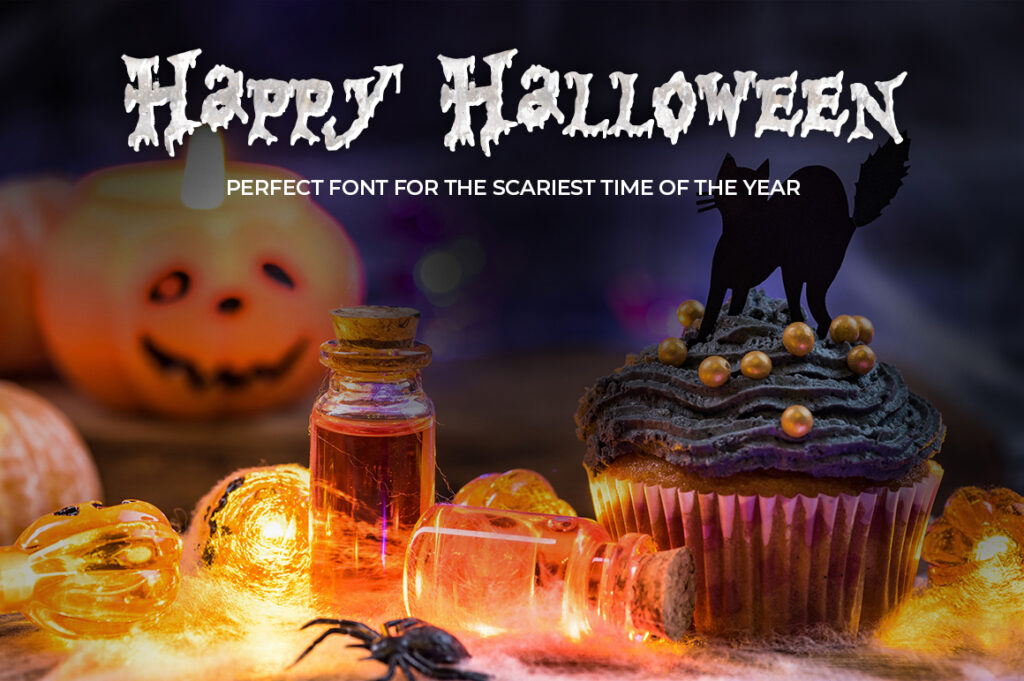
Happy Halloween is the perfect font for the scariest time of the year. Its spooky appearance will inspire you! This font supports English, Spanish, Portuguese, German, Italian, French, and Polish.
2. Antaro Font
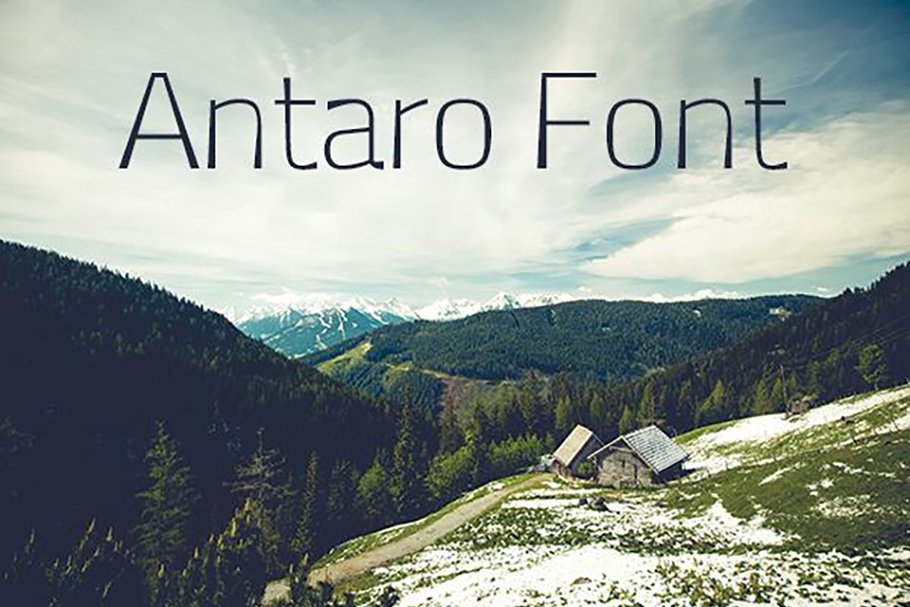
3. Geranium Font
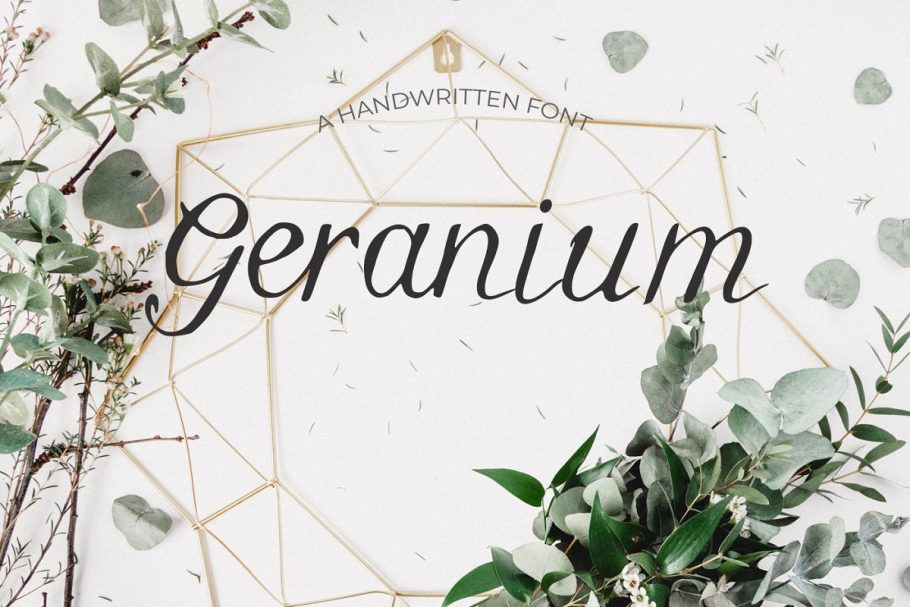
The Geranium font is a beautiful font with a unique, detailed, and handmade look. This is one of the best free fonts for commercial use.
4. Doriath Font
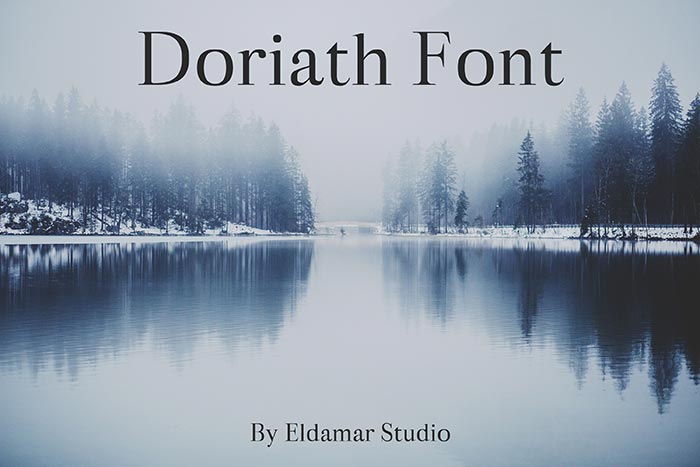
Doriath Font is an attractive handwritten font. You can use this free font for commercial use to design unlimited logo designs.
5. Amaranthine Script
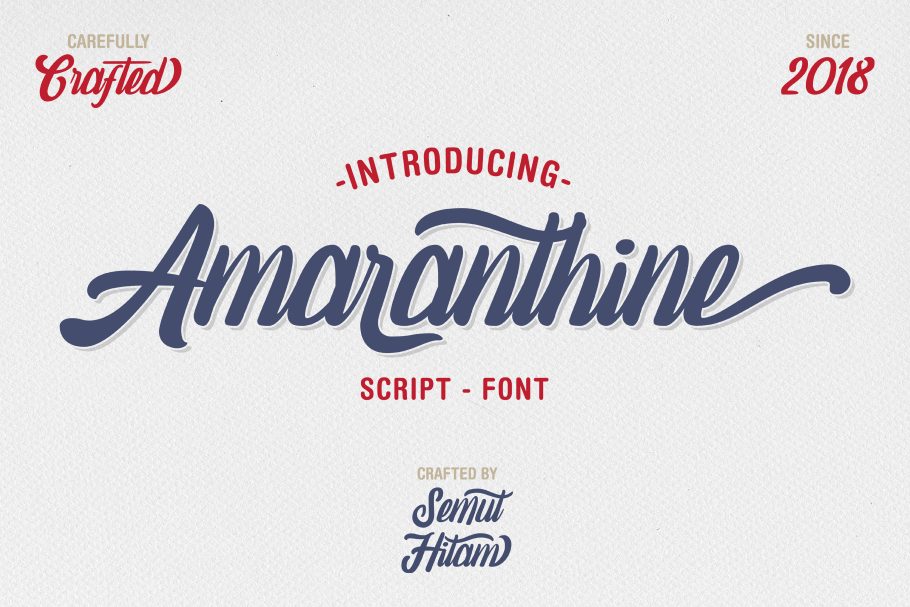
This is a smooth and vintage, free script font.
6. Aletcia Free Font
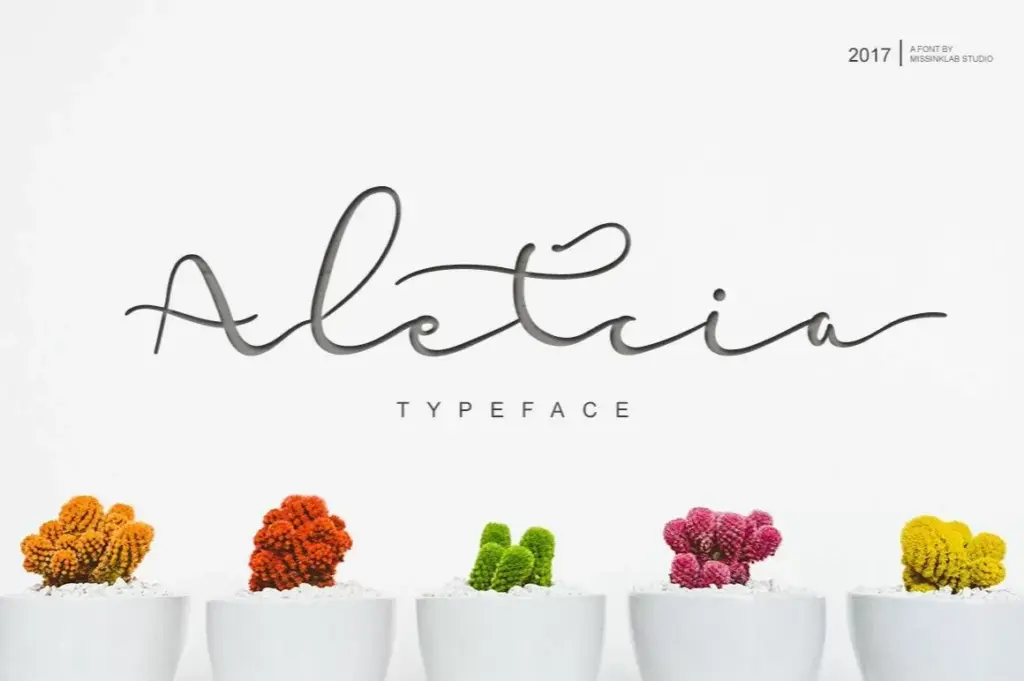
Aletcia is a beautiful script font perfect for quotes, blog headers, posters, stationery, etc.
7. Sunday Holiday
This free font for commercial use comes with many open-type features, upper and lower case standard characters, punctuation and numerals, multilingual characters, ligatures, stylistic alternates, and many more glyphs.
8. Roastink Script – Free Script Fonts For Commercial Use
Roastlink Script is ideal for website design, book covers, mugs, t-shirt designs, posters, invitations, printable business cards and many more.
9. Decalled Script – Free To Use Fonts
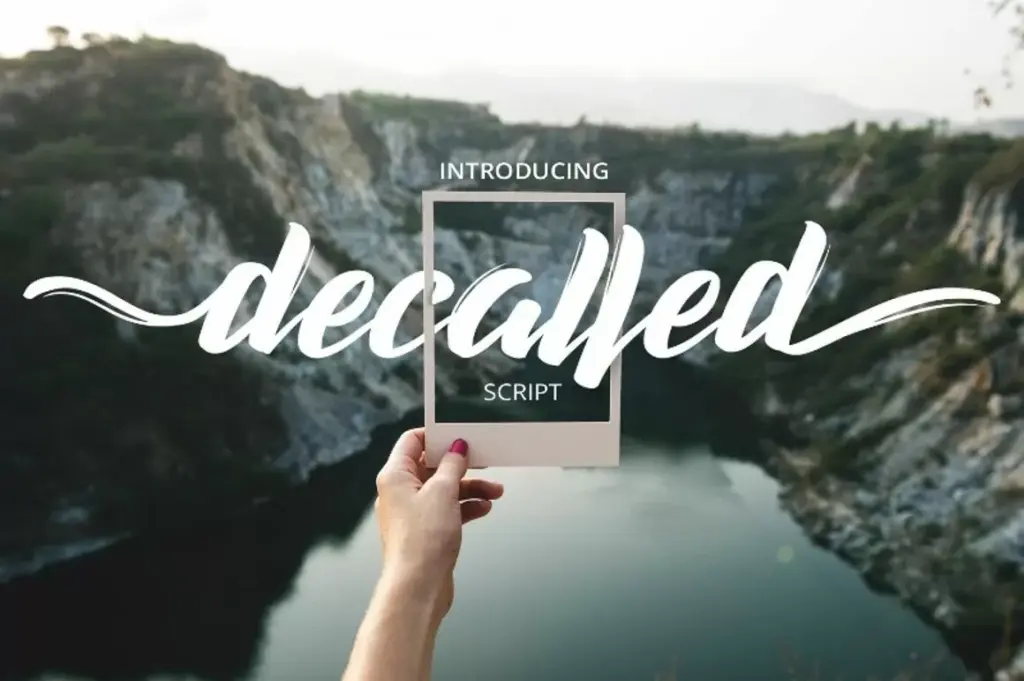
Decalled Script is great for stationery design, invitations, t-shirts, apparel and packaging designs.
10. Fitamint Script Font
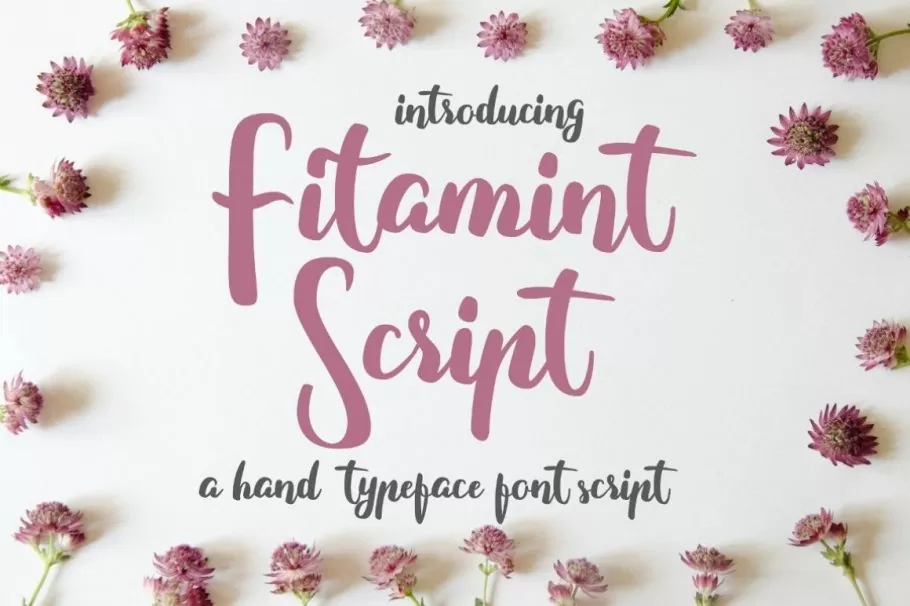
This font is perfect for titles and headlines. Fitment is a smooth and elegant font script which is perfect for invitations, branding, posters, flyers, book covers, quotes, etc. This is one of the best free modern fonts for commercial use.
11. Nathan Script Font
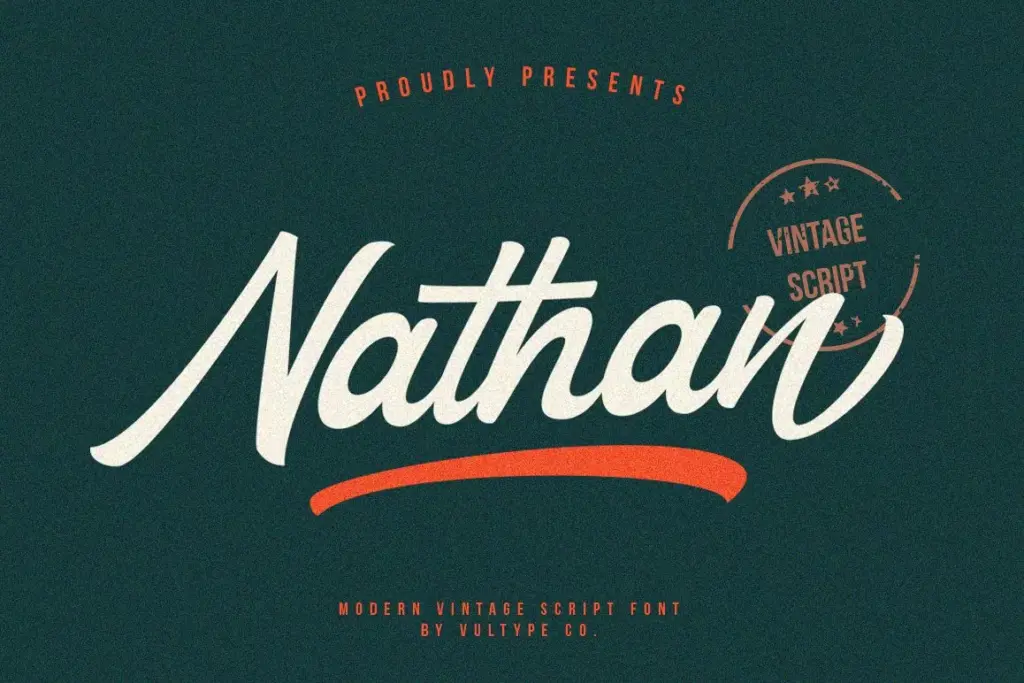
Modern vintage and retro styles inspire Nathan Vintage Script with a font duo that combines two trends (Modern Sans serif caps and Vintage Script). This is a great option for free to use fonts.
12. Streetbrush Font Free – Goshbe
Goshbe Street Brush Font is a textured brush font. This font is guaranteed to deliver an unapologetically fast-paced message to your designs.
13. Vintage Font – Delfina
The vintage old American style inspires this font. Bring back the classic touch to this decade with this mind-blowing font.
14. Duo Font – Chestuh Script and Sans
Chestuh script and sans is a font duo combination of script and sans serif typeface.
15. Wakanda – Free Script Fonts For Commercial Use
Wakanda Script Font – a stylish & modern hand letter script typeface. This font will look awesome and amazing in many ways with your latest project.
16. Whisholder Font
Whisholder is a free vintage font; vintage lettering signs and art inspire retro typeface.